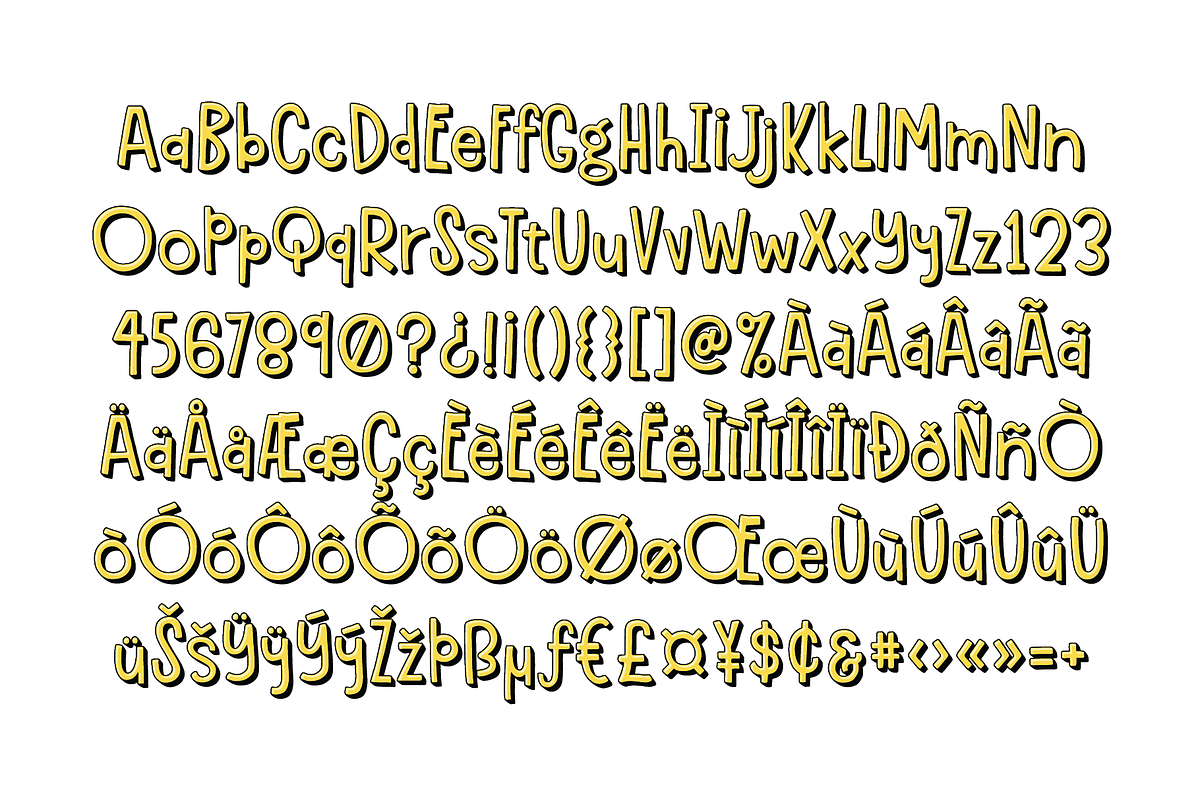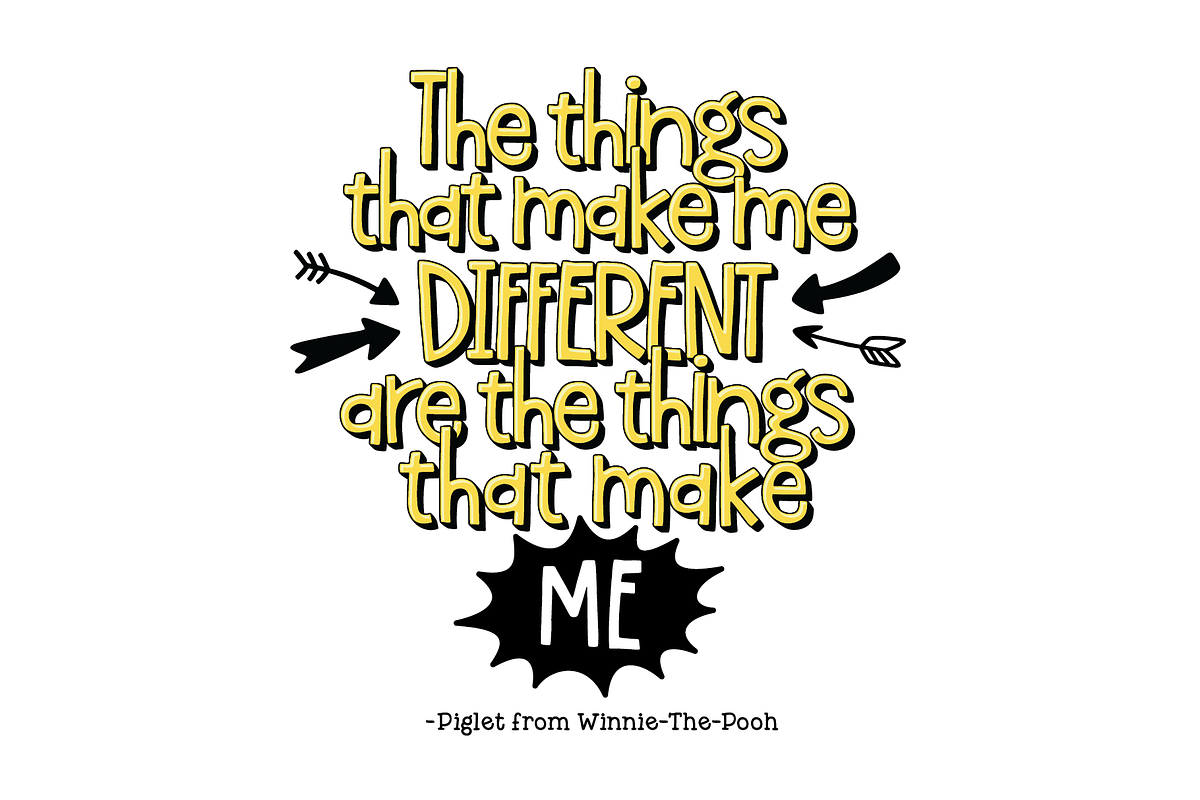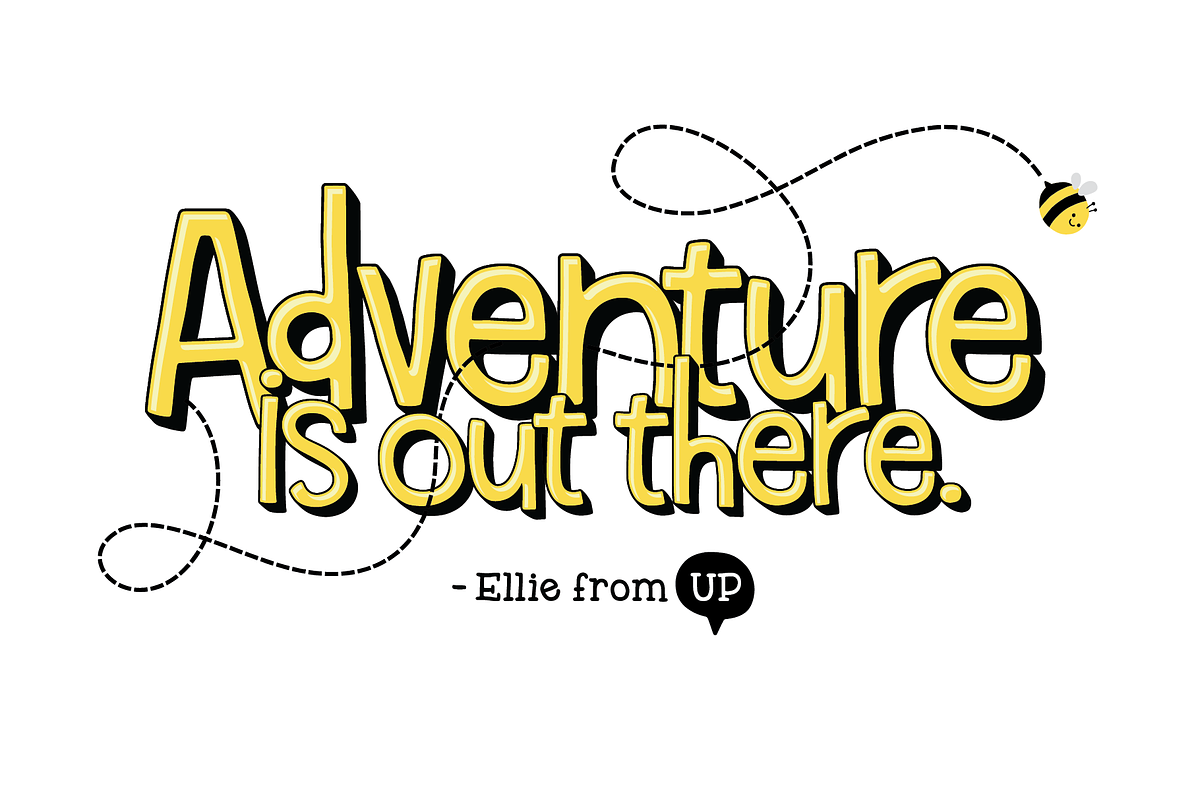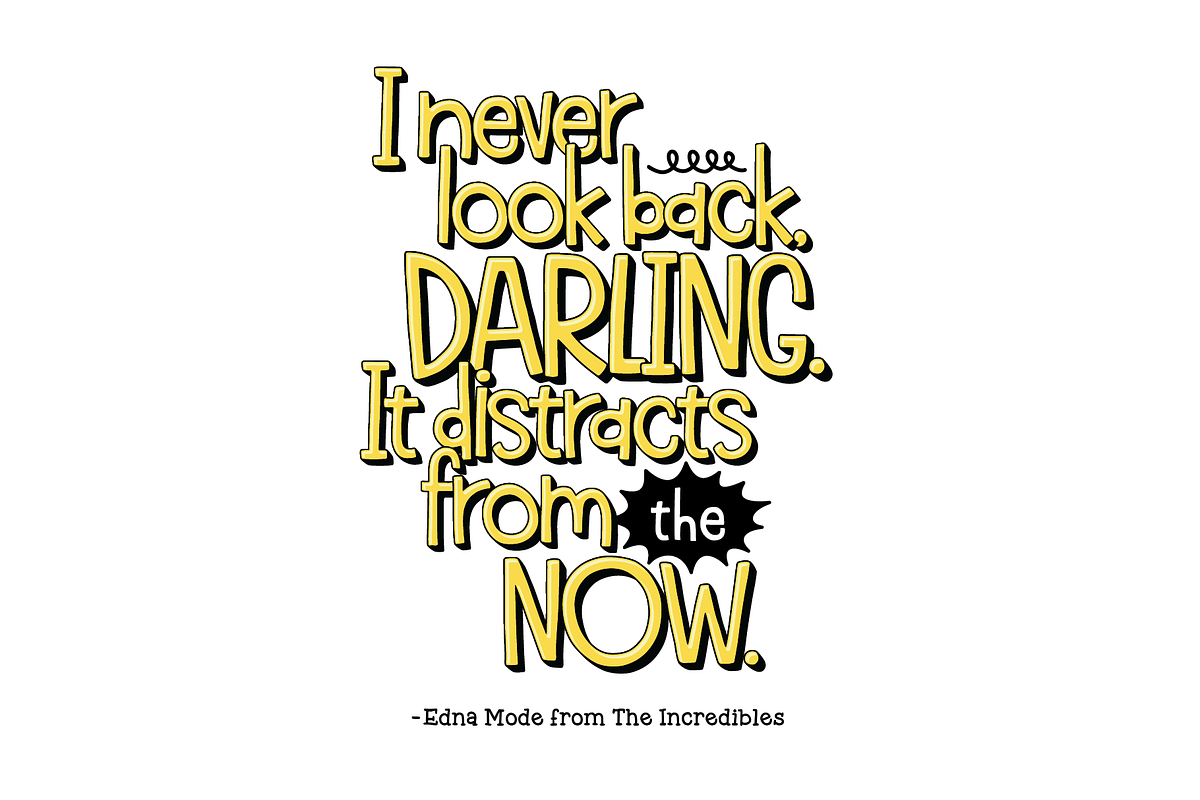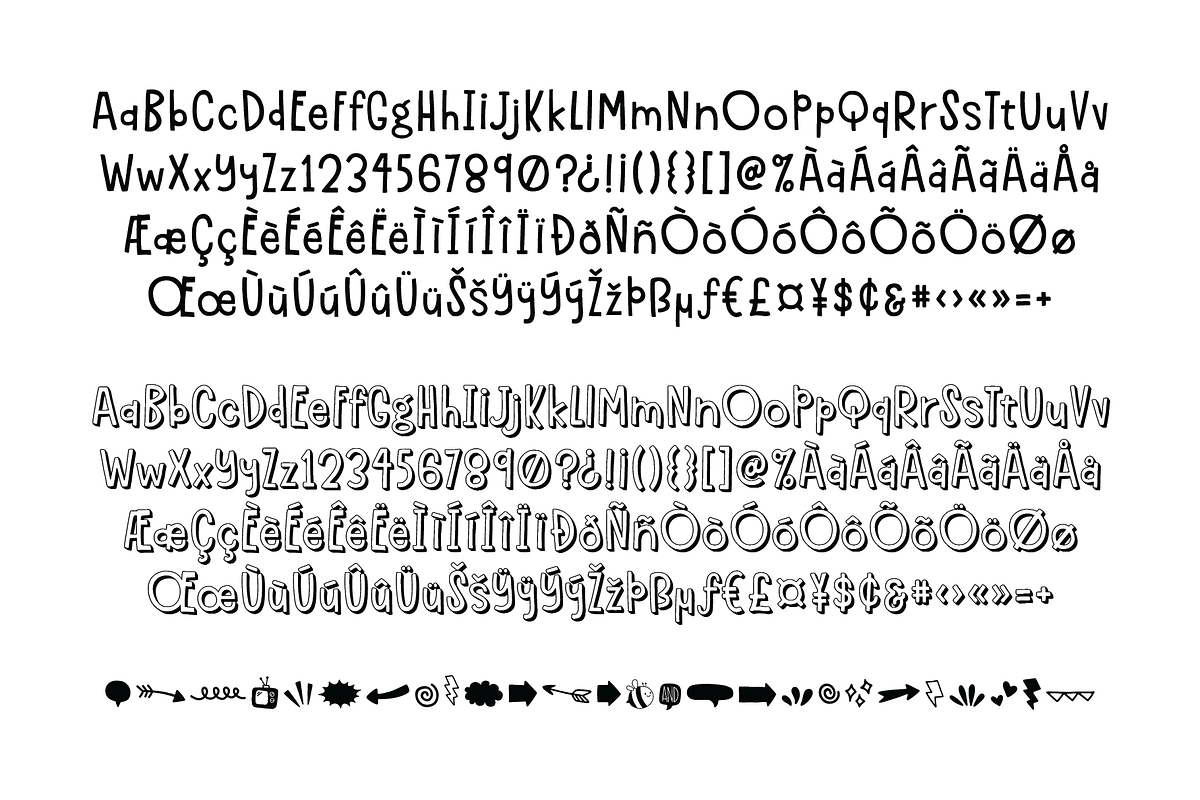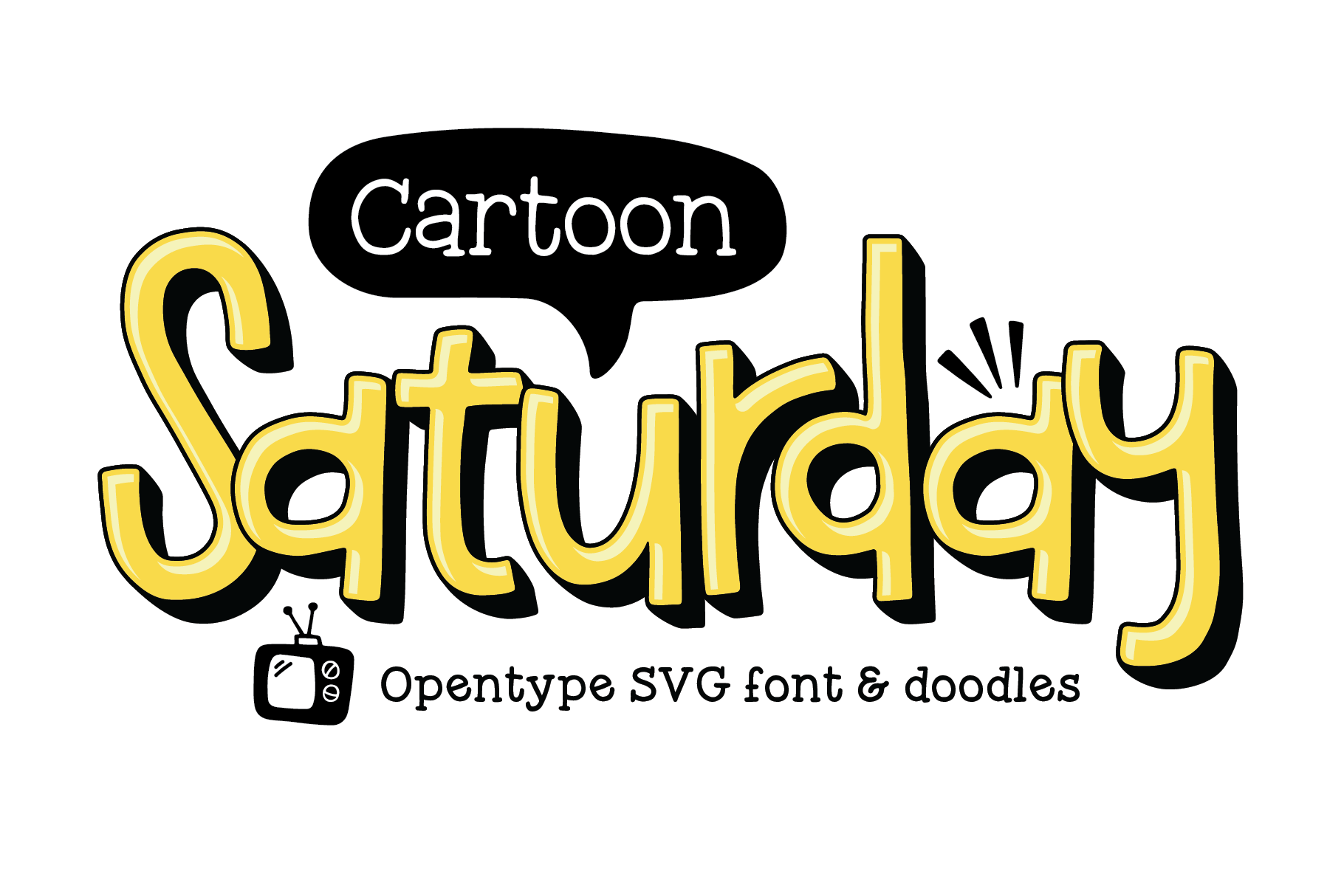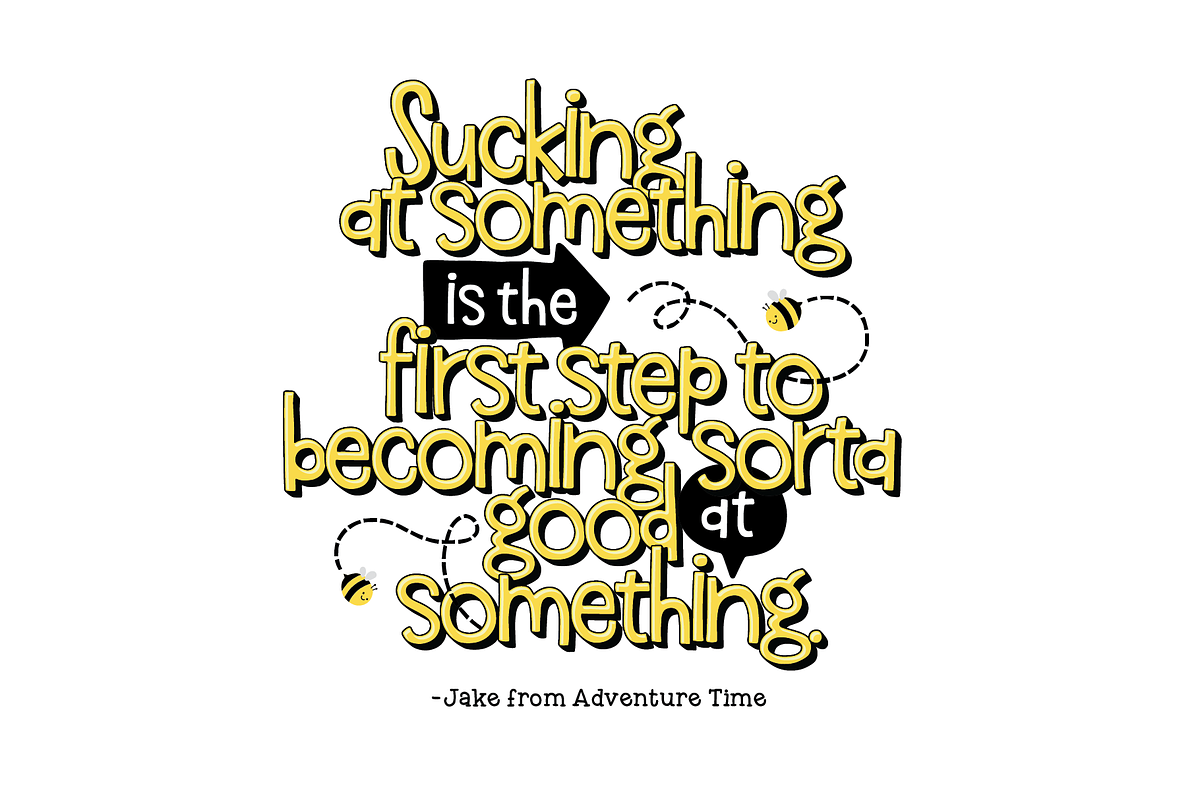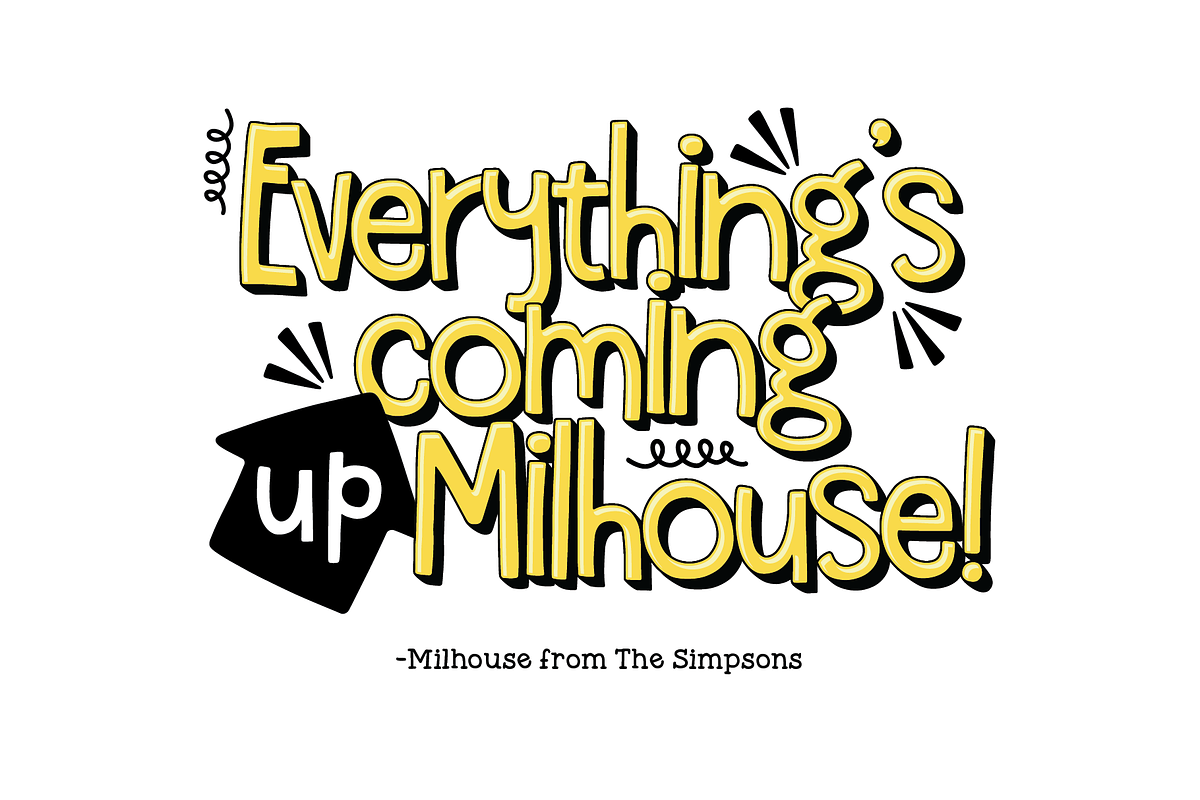
Cartoon Saturday Font
Cartoon Saturday is a friendly font bursting with charm. It comes with an OpenType-SVG version in yellow as well as filler and shadow versions that can be placed on top of each other. A few doodles have been thrown in as well to help create some cute designs.